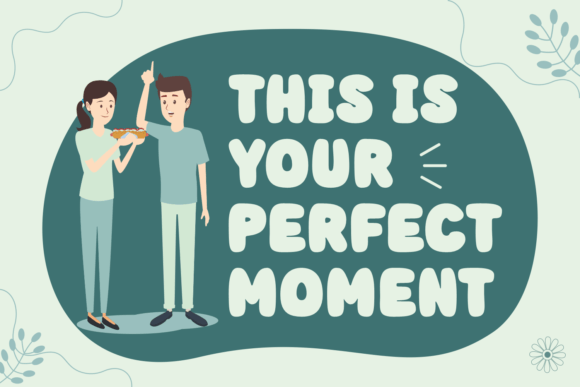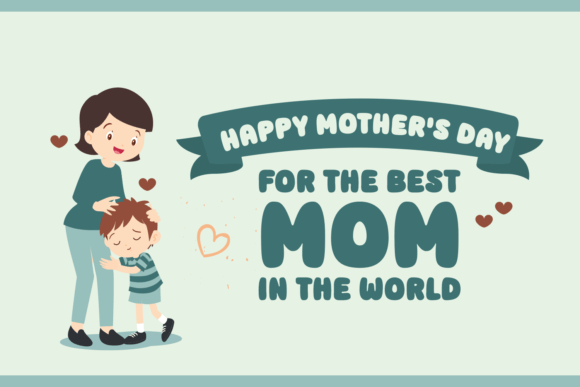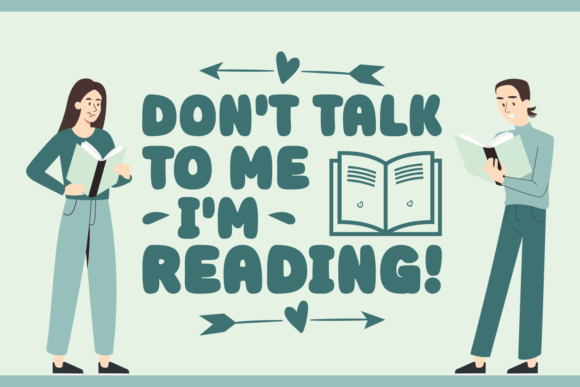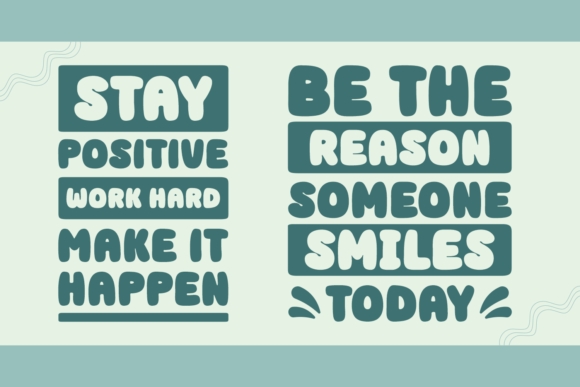
Introduction to Katong Sudapa Font
Have you ever stumbled upon the perfect font that makes your creative project shine? For many designers, this moment is pure bliss. It’s like finding a missing puzzle piece that brings everything together. I still remember the excitement of discovering the Katong Sudapa Font – its playful, easy-to-read style immediately caught my attention. Whether you’re working on a digital design, presentation, or craft project, this font has the potential to become your new favorite go-to font.
As a valuable design resource, Katong Sudapa Font offers a high-quality, transparent background that’s perfect for any creative project. Its friendly demeanor makes it an excellent choice for greeting cards, kids’ crafts, or even social media graphics. And the best part? You can download it for free, making it an accessible option for designers of all levels.
- High-quality font designed for creative projects, perfect for designers and artists looking for a unique design resource.
- Unique, hand-drawn design style sets it apart from other fonts, adding a touch of personality to any creative project.
- Perfect for designers working on various design projects, from branding and marketing materials to digital art and graphic design.
Honest Review: Katong Sudapa Font
I recently had the opportunity to work with the Katong Sudapa Font, and I must say it’s been a game-changer for my design projects. As a designer, I’m always on the lookout for high-quality fonts that can elevate my creative work.
What works well with the Katong Sudapa Font is its versatility. I was able to use it for a variety of design projects, from logos to graphics, and it looked great every time. The font is also super easy to download and install, making it a convenient addition to my design resource library. Plus, the transparent background feature is a bonus, allowing me to easily layer my designs without any hassle.
Here are some of the key features that I love about the Katong Sudapa Font:
- Works well for a variety of design projects, from logos to graphics
One limitation I noticed was that the font may not be suitable for very small text sizes, as it can become a bit fuzzy. However, this is a minor issue and doesn’t detract from the overall quality of the font.
Overall, I’m really impressed with the Katong Sudapa Font and would highly recommend it to other designers. It’s a great addition to any design resource library and is sure to help take your creative projects to the next level.
The Katong Sudapa Font is ideal for a variety of creative projects, including graphic design, digital art, and typography. It’s perfect for creating logos, branding materials, and marketing collateral. The font’s high quality and transparent background make it suitable for use in a range of applications, from web design to print materials.
Yes, the Katong Sudapa Font is designed to be used with a transparent background. This makes it ideal for designers who want to create high-quality, visually appealing graphics for their creative projects.
Yes, the Katong Sudapa Font is designed to be used at high resolutions, making it suitable for printing applications. The font is optimized for use in a variety of design contexts, including business cards, brochures, and other marketing materials.